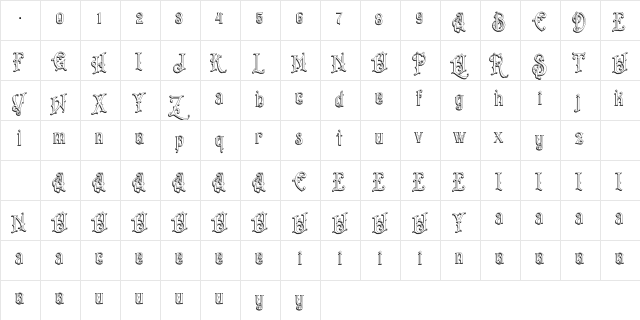
Bandits Shadow
| Foundry | Hans Co. |
| Designer | Burhan Afif |
Design Context for Bandits Typeface
Bandits brings ornamental detail and strong personality to headlines and identities, where visual impact matters more than quiet functionality.
Font Pairing: Pair with a clean neutral sans-serif for body copy to let Bandits's character lead without overwhelming the composition.
Pro Tip: Use Bandits exclusively at display sizes — it was designed to be seen, not read at length. Let a neutral companion handle body copy.